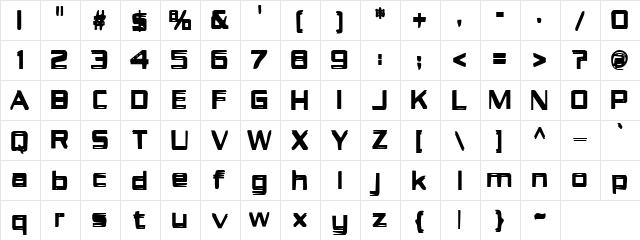
It's About Time Regular
Design Context for It's About Time Typeface
It's About Time takes a measured approach to typography — its balanced proportions and neutral character make it a reliable workhorse for both digital and print work.